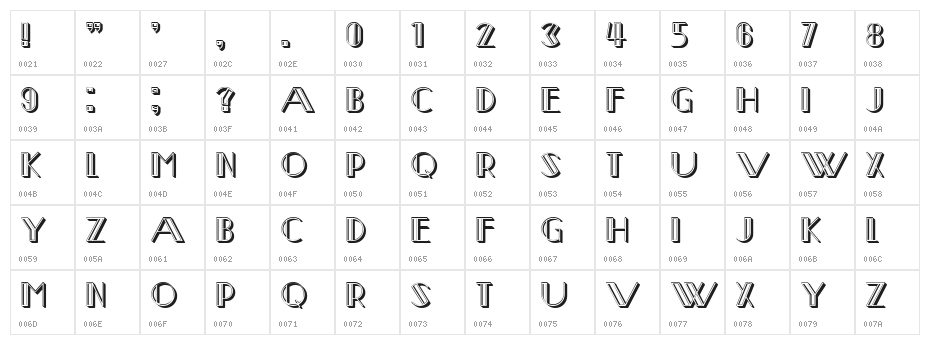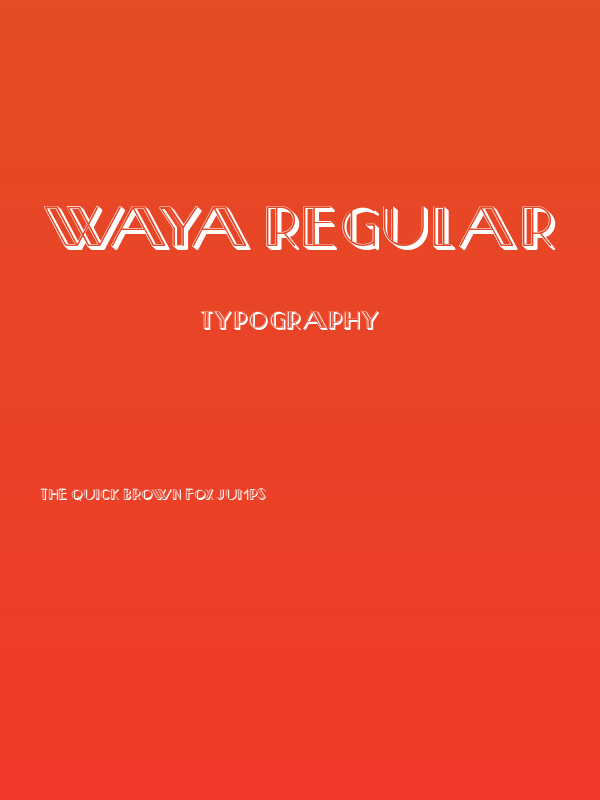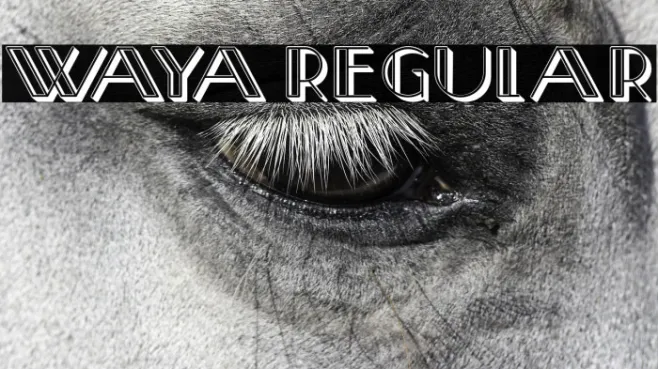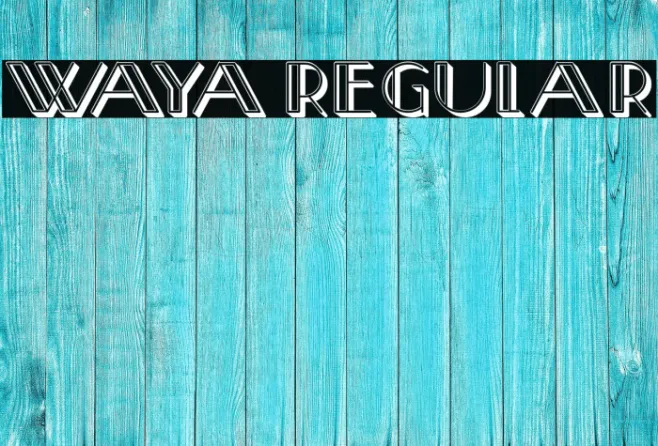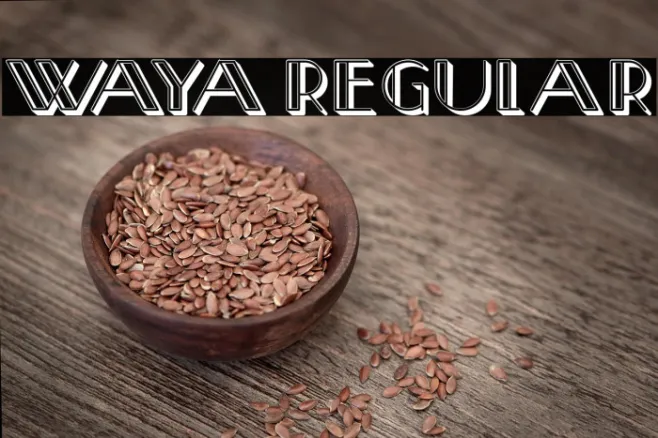
Waya Regular Font
Waya Regular Description
This font features a bold, geometric design with a three-dimensional effect, achieved through the use of shadowing and outlines. The uppercase letters are characterized by sharp angles and clean lines, giving them a modern and dynamic appearance. The numerals and special characters maintain this aesthetic, providing a cohesive look across all characters. The font's unique style makes it stand out, with a strong emphasis on visual impact and readability.
| Proposed Projects | Ideal for branding, posters, and headlines where a modern and impactful look is desired. |